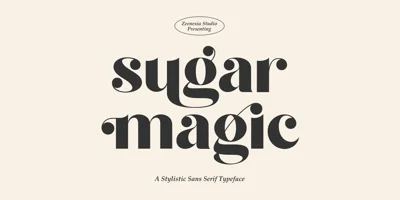
Sugar Magic Font
Sugar Magic Font is perfect for magical bakery branding, enchanted confectionery packaging, whimsical children's products, fairy tale dessert menus, sweet treat campaigns, candy shop signage, magical birthday parties, fantasy-themed cafés, delightful ice cream parlors, and spellbinding applications that celebrate the enchanting sweetness and magical wonder of confectionery delights.
What makes Sugar Magic Font truly exciting is its enchanting fusion of sweet confectionery charm and magical wonder that transforms ordinary text into delightful spells of sugary delight and confectionery enchantment. This exceptional typeface combines candy-inspired whimsy with magical elegance, featuring sweet letterforms and enchanted character that convey both confectionery artistry and magical transformation. The font's sugar-powered personality and magical sweetness make it perfect for brands seeking to communicate sweet enchantment, magical delight, and the transformative power of confectionery magic that turns simple ingredients into extraordinary sweet experiences that create lasting memories and pure joy.
The Sugar Magic Font family includes multiple weights and styles: Light, Regular, Bold, Whimsical, and Enchanted variations designed for maximum magical impact. Each family member maintains the distinctive sweet character while offering flexibility for diverse confectionery applications and magical branding systems. The comprehensive character set supports sweet typography needs and magical design elements, making it suitable for international confectionery communications.
When you choose Sugar Magic Font, you're selecting a typography spell that delivers authentic confectionery credibility and magical sweetness to every delightful project. This enchanting typeface excels in applications where sweet magic and confectionery wonder are essential ingredients, delivering exceptional magical appeal while maintaining sweet authenticity. Whether you're designing bakery brands, magical campaigns, confectionery materials, or sweet marketing content, this font provides the sugar magic sophistication and enchanted sweetness that resonates with sweet lovers who appreciate confectionery artistry, magical experiences, and the pure joy of sugar magic that creates moments of sweet enchantment and delightful wonder.